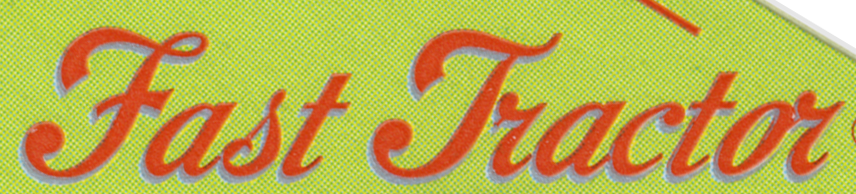
Looking for this Fast Tractor UK drink brand font from the late 90s
All the matching tools are drawing a blank
Logotypes are rarely straight settings of a typeface, and if a typeface is involved it is often heavily altered.
Not finding a match anywhere to either the initial caps or lowercase, so the only conclusion I can draw is that it is custom.
Similar vibe: Emerat, Packard Script